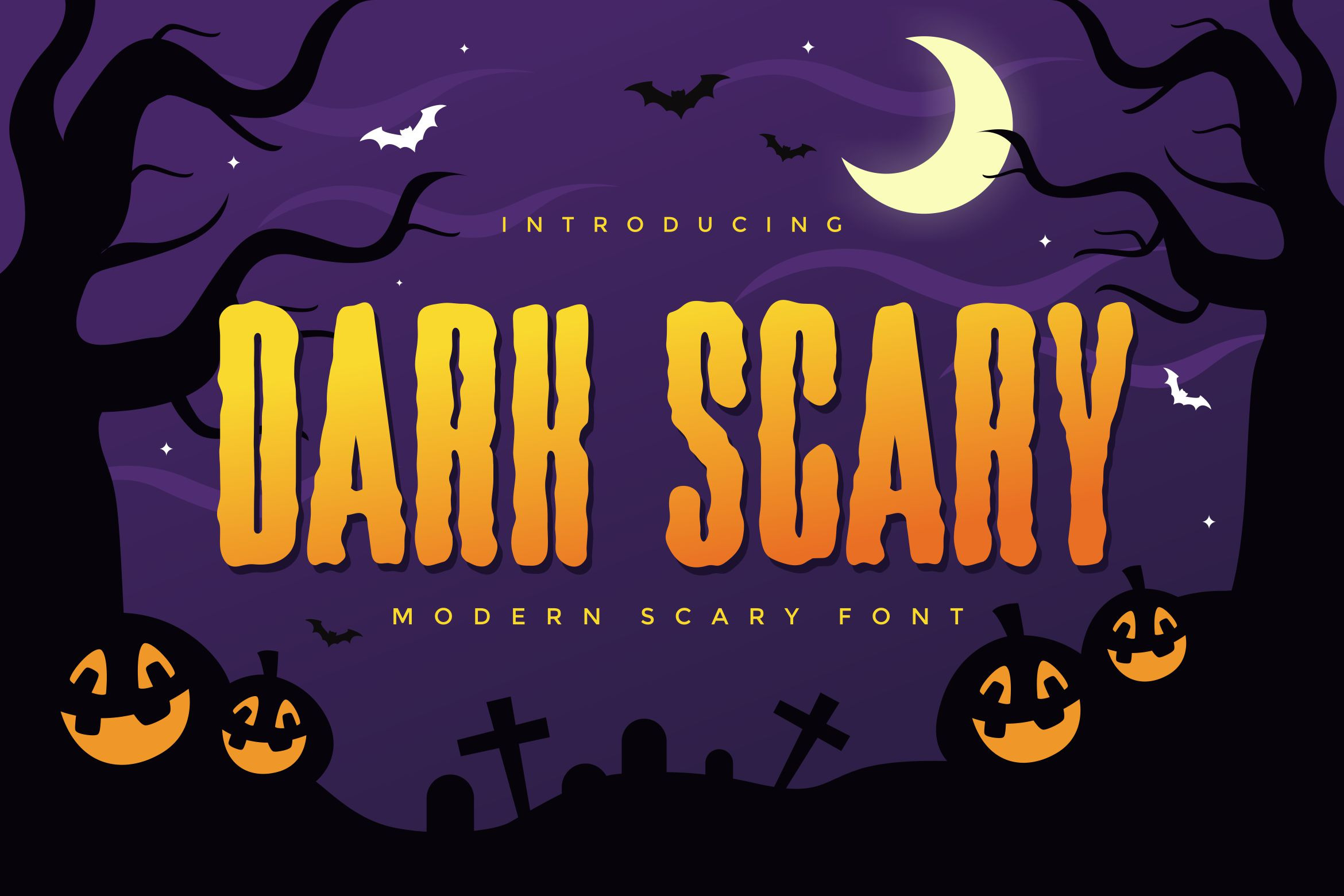
Dark Scary - Halloween Font
Introducing our new product Dark Scary - Modern Font
Dark Scary is a bold, modern display font with playful flair, ideal for attention-grabbing headlines, logos, and diverse design projects. Versatile and readable in both digital and print, Dark Scary adds a dynamic touch to your message.